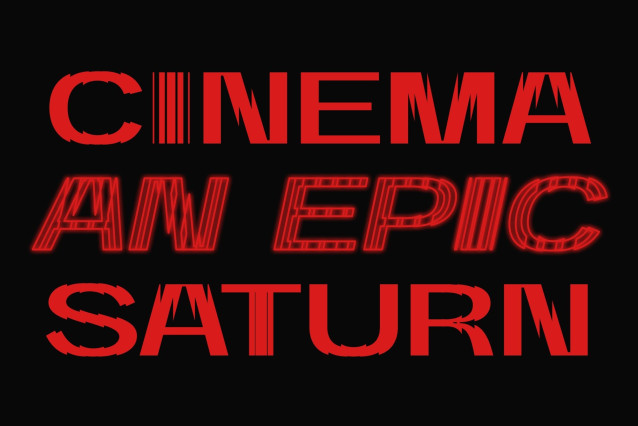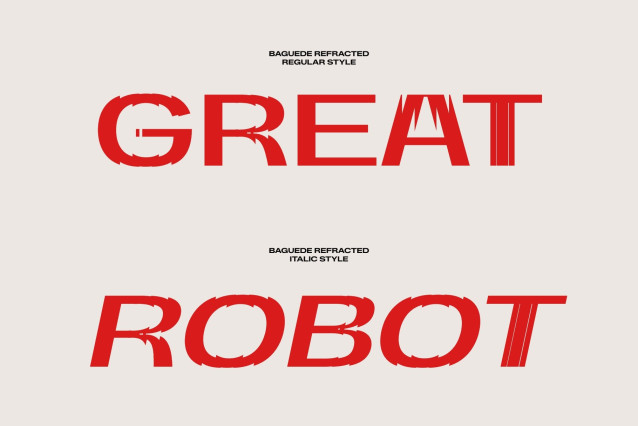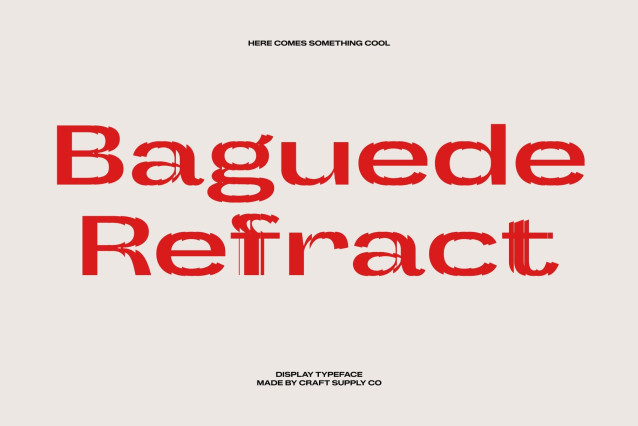
Baguede Refracted – Grotesque Sans Serif Font: Where Minimalist Precision Meets Futuristic Refraction
Clean Functional Forms with Modern Minimalism
This is a sans serif font that embodies a grotesque form with a minimalist and highly functional design approach. Its clean lines and balanced proportions create a refined visual identity filled with clarity, efficiency, and contemporary sophistication.
Refracted Effect with Futuristic Fragmentation
This font features glitch-inspired light refraction details that create fragmented cuts, geometric slices, and layered distortions across the letterforms. This futuristic effect introduces movement, digital depth, and experimental visual energy while preserving the font’s clean and polished structure. The result is a style that feels elegant, modern, and technologically inspired.